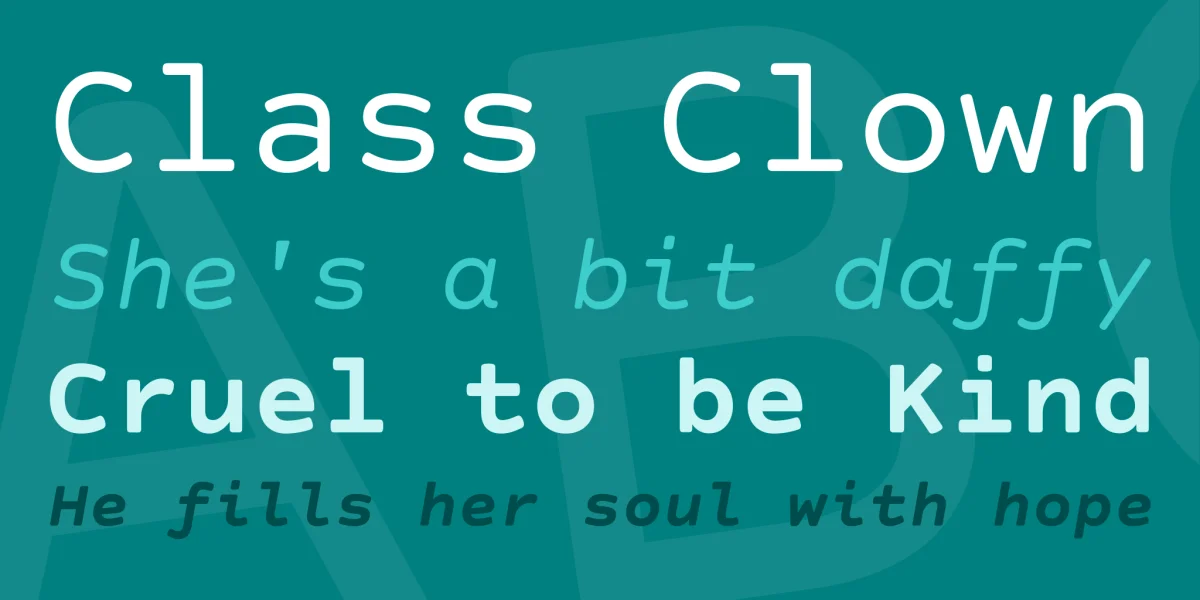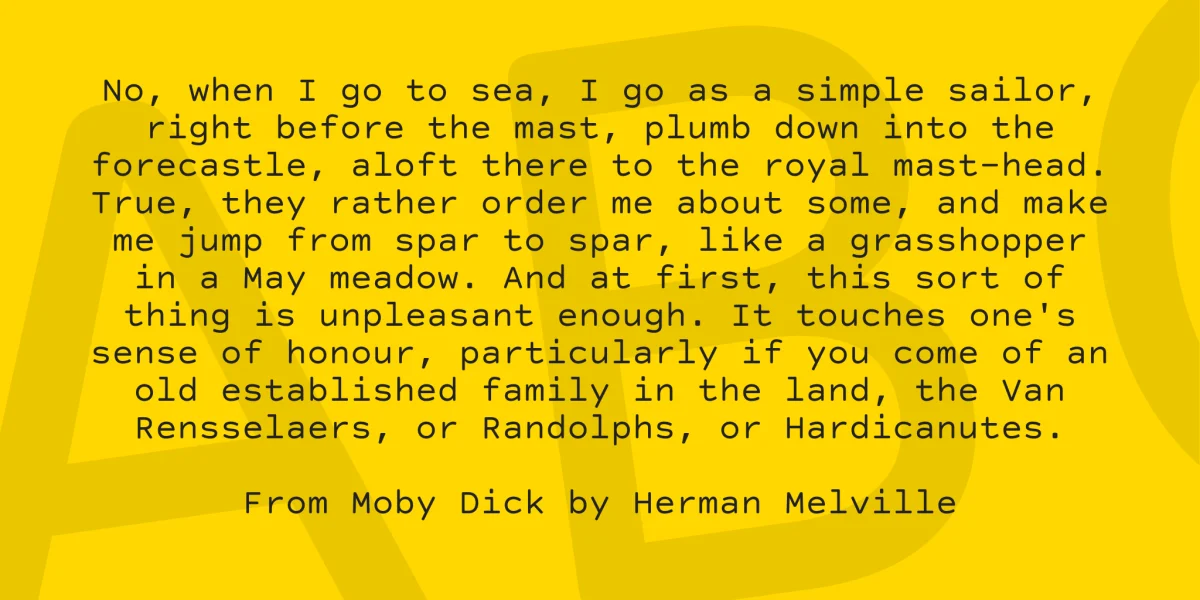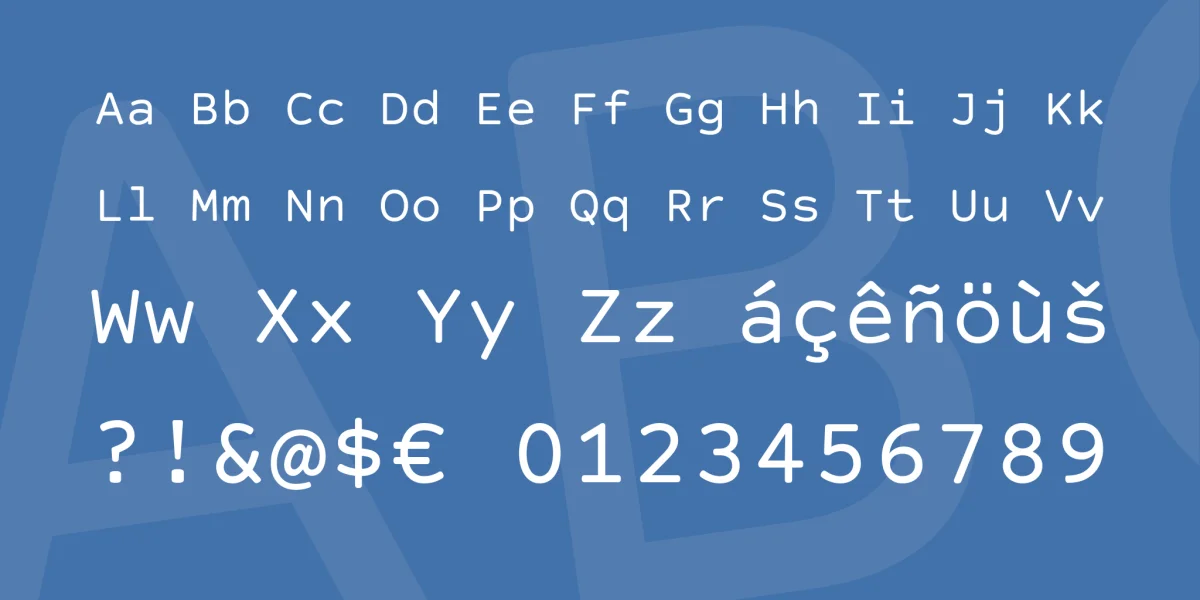
Since the beginning, screenplays have been written in Courier. Its uniformity allows filmmakers to make handy comparisons and estimates, such as 1 page = 1 minute of screen time.
But there’s no reason Courier has to look terrible. We set out to make the best damn Courier ever.
We call it Courier Prime.
Courier Prime Sans, the goodness of Courier Prime without the serifs.